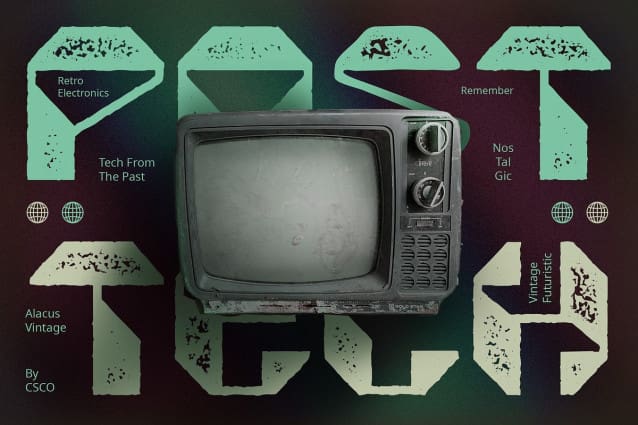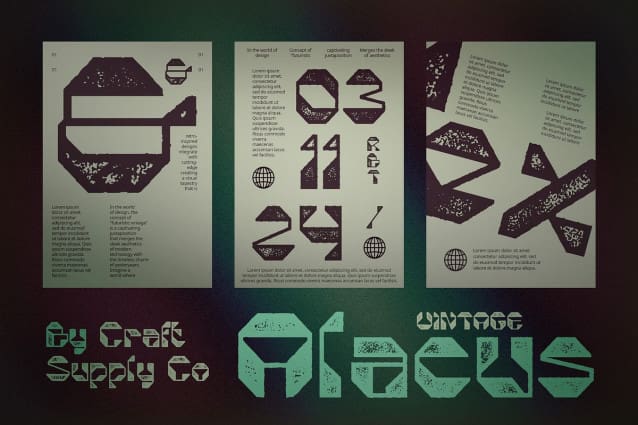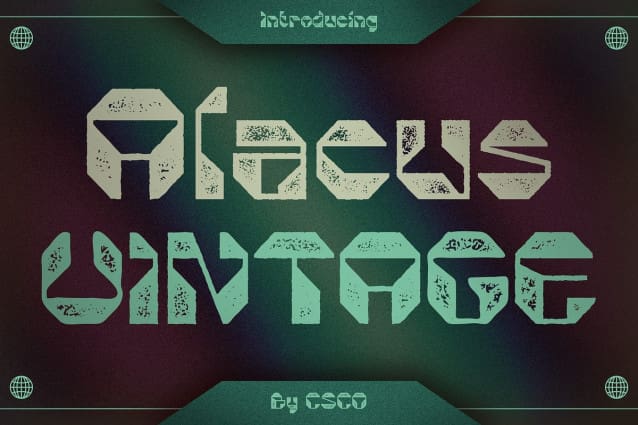
Alacus Vintage Font
Alacus Vintage Font: Retro Geometric Charm. Geometric Inspiration Alacus Vintage draws inspiration from the sleek and angular shapes of robots, infusing your designs with a futuristic display and modern aesthetic.
Vintage Effect The font is enhanced with a vintage effect, giving it a stamp, drawn, and rough appearance reminiscent of old-school designs. Each character exudes nostalgia and authenticity.
Distinctive Style With its geometric form and vintage effect, This font boasts a distinctive style that captures attention and adds personality to any project.
Versatile Application Despite its retro charm, This font is versatile in its application. From logos and branding to posters and web design, it adds a touch of nostalgia and sophistication to various design projects.
Retro Futurism at Its Finest This font combines the futuristic allure of geometric shapes with the timeless appeal of vintage aesthetics. Its distinctive style and versatile application make it a standout choice for designers looking to infuse their projects with retro charm and modern flair.